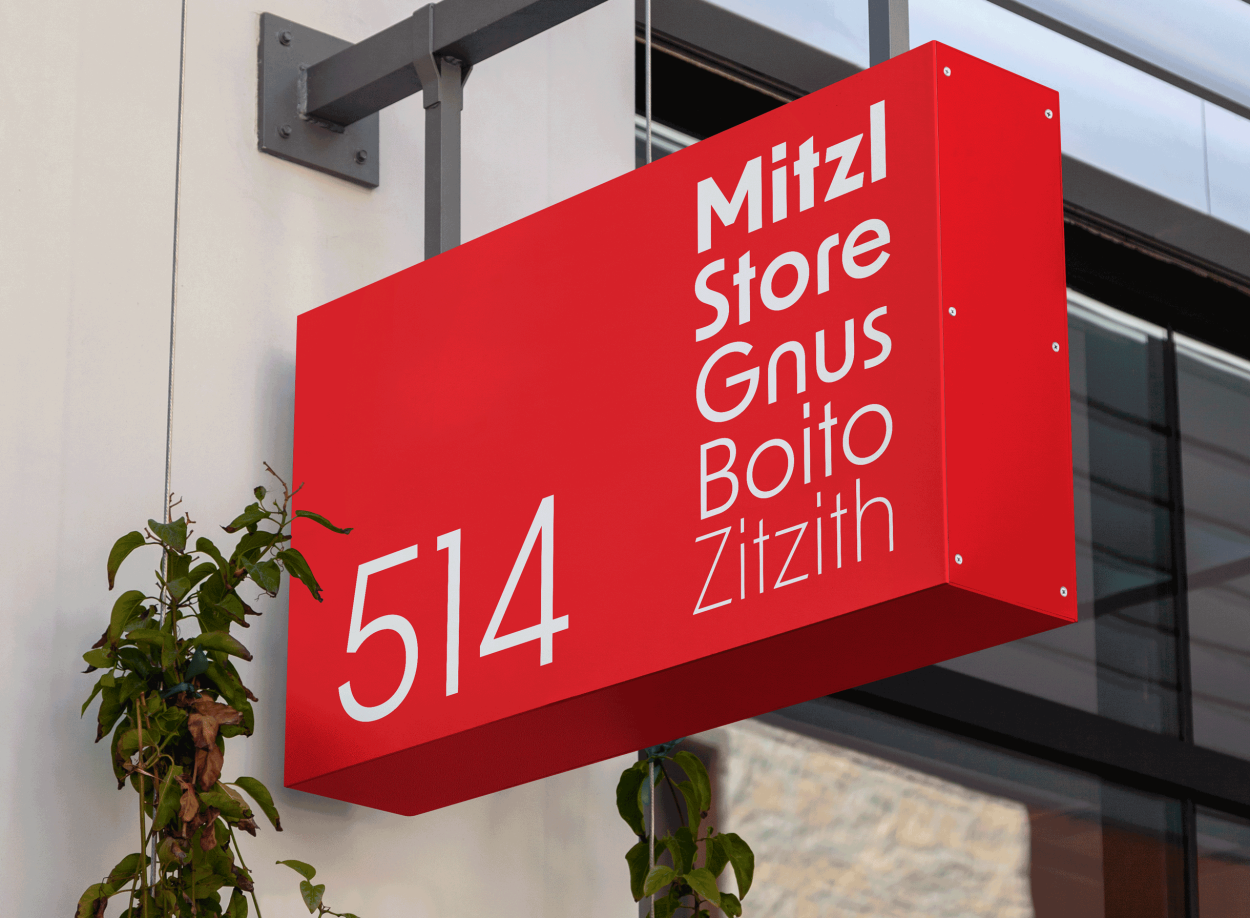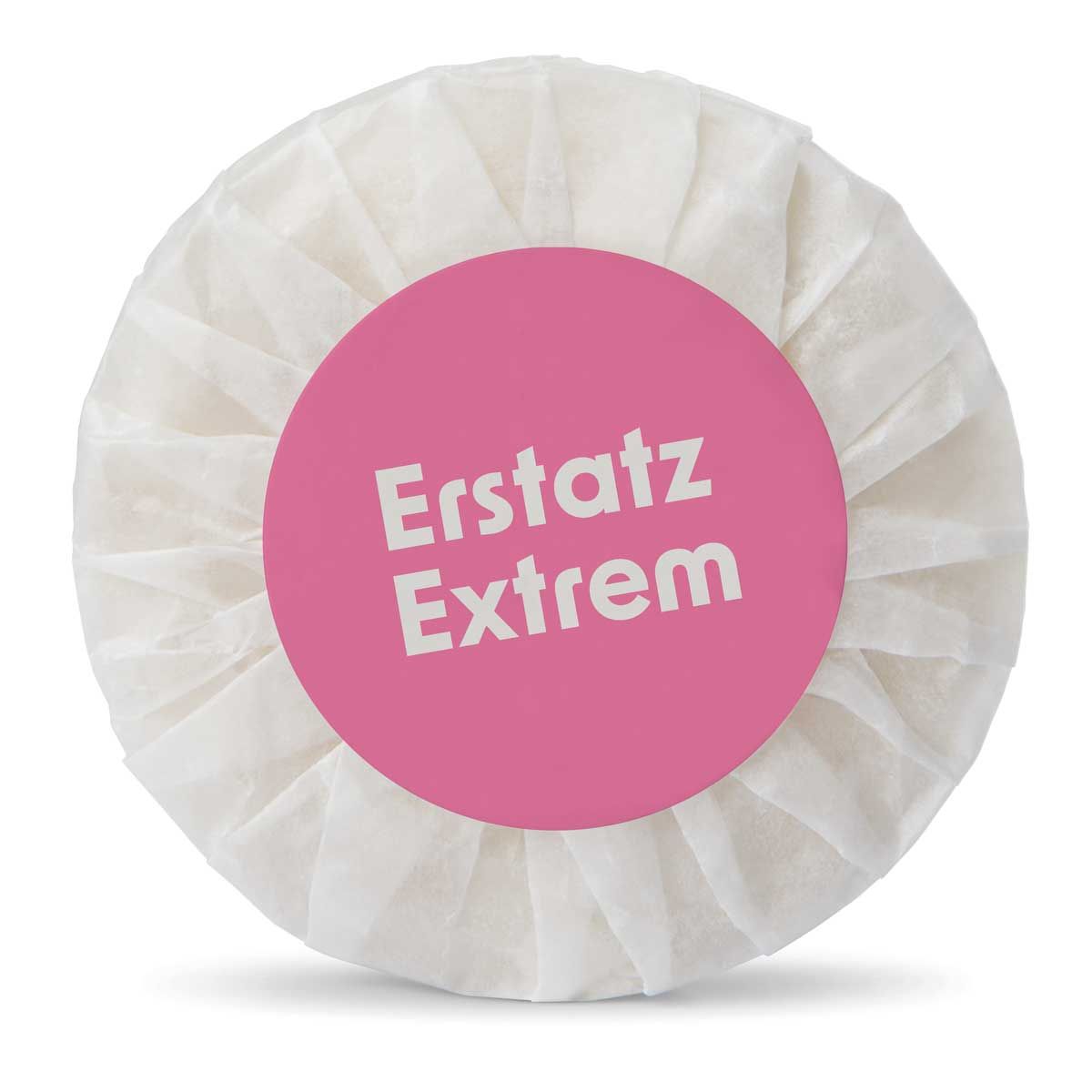
New Order Font | Avant-Garde Sans Serif Typeface
New Order
New Order is a contemporary sans serif font family with subtle influences from the early twentieth-century avant-garde. Designed by Rutherford Craze and Miles Newlyn, it combines geometric structure, controlled eccentricity and modern typographic discipline.
The family is direct, graphic and quietly unconventional: useful for brand identities, editorial design, cultural projects, packaging and display typography where a neutral sans serif would feel too ordinary.
New Order in 5 styles
5 weights
New Order includes five weights: Light, Regular, Medium, SemiBold and Bold. The family gives designers a compact but flexible range for headlines, identity systems, short text settings and graphic typographic layouts.